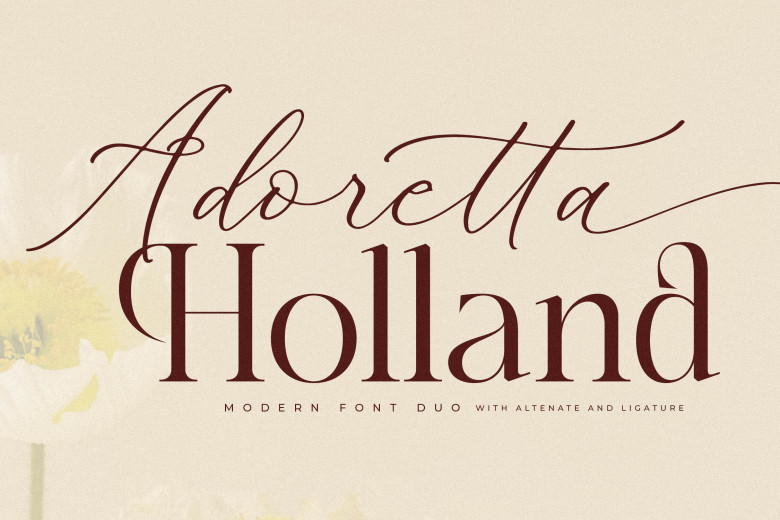
Adoretta Holland Font
Adoretta Holland is a modern and stylish font pair, combining traditional serifs with elegant script. The serif font exudes elegant sophistication while the script font adds flow and style. Ideal for luxurious branding invitations and editorial designs.
Adoretta Holland’s versatility makes her essential for designers looking to blend modern with classic elements into their designs.
Adoretta Holland Font Duo